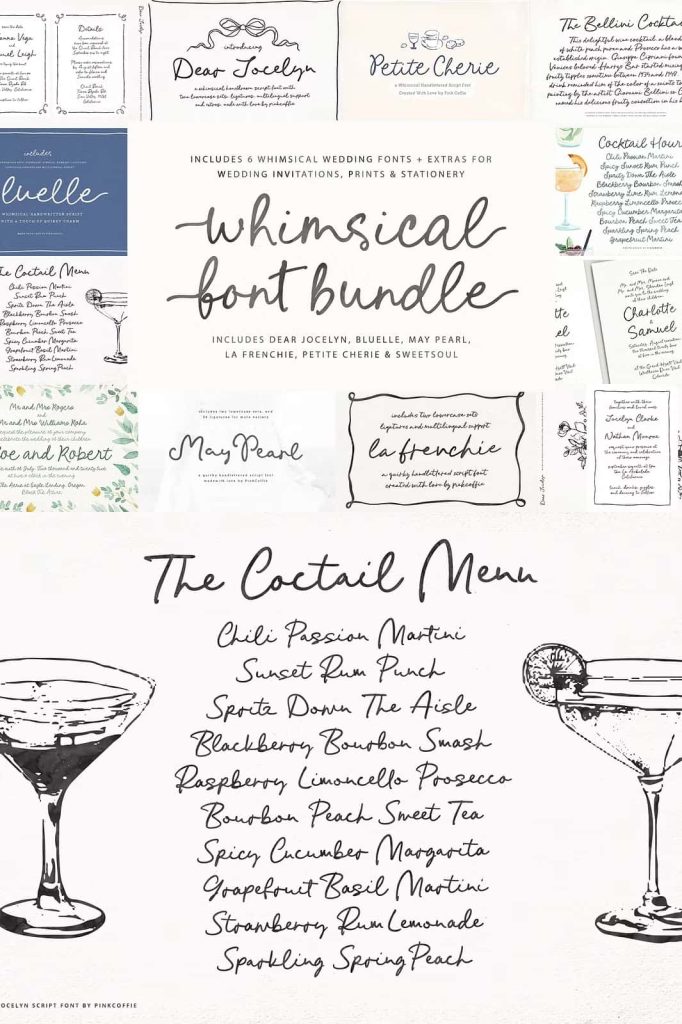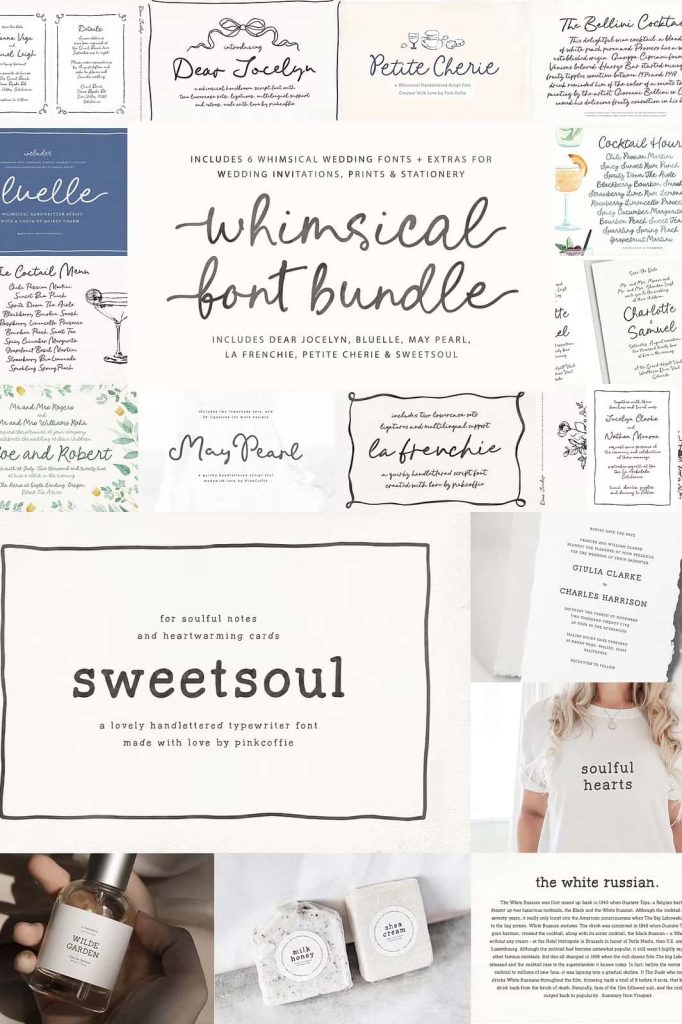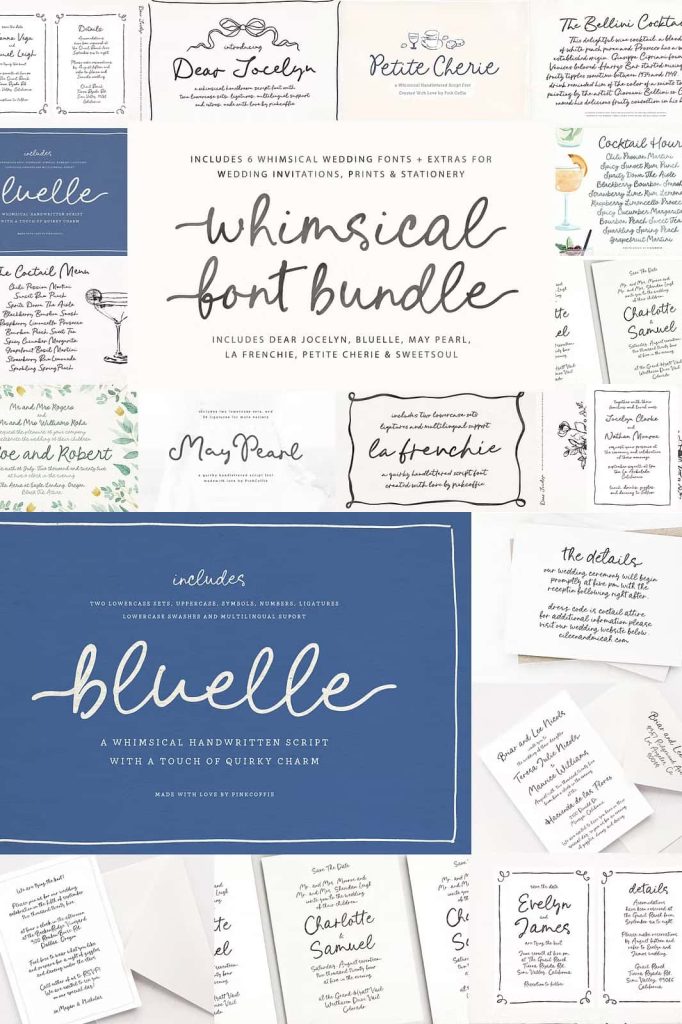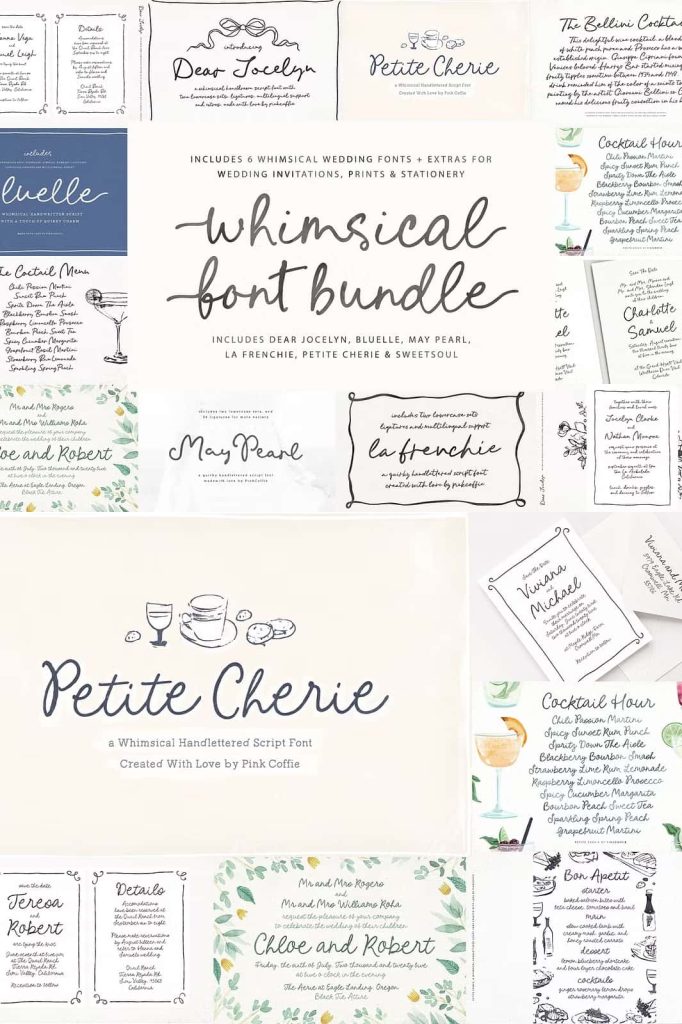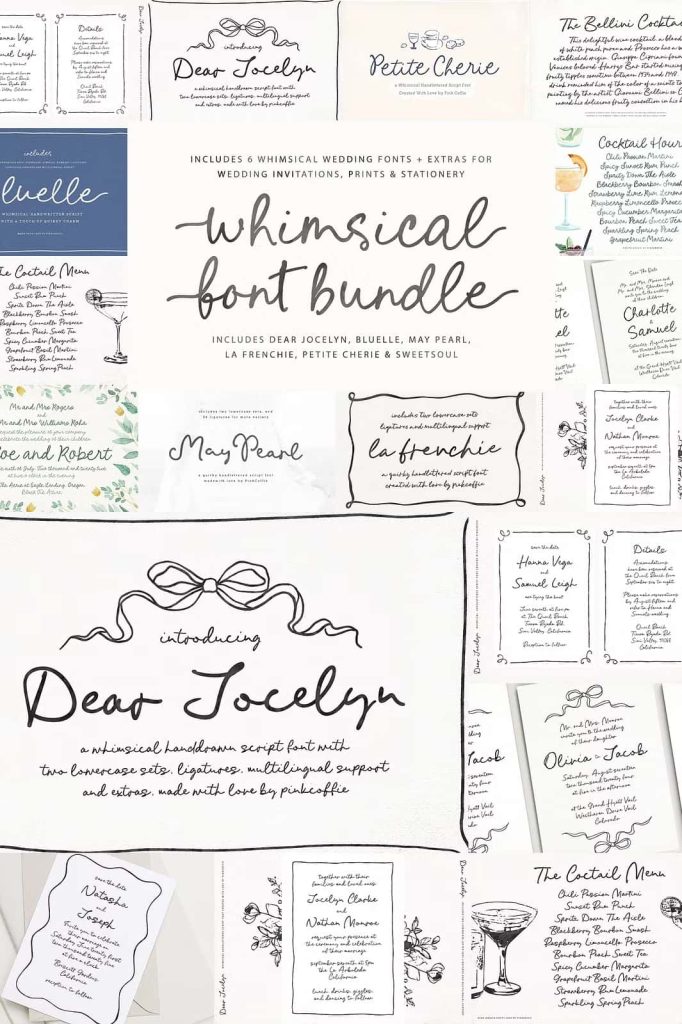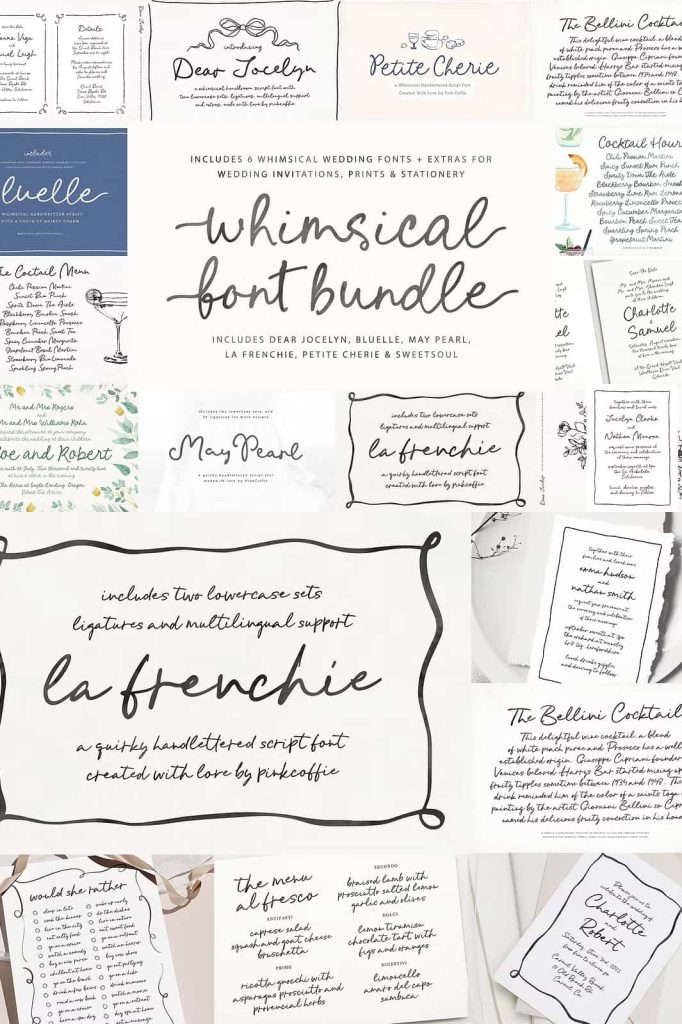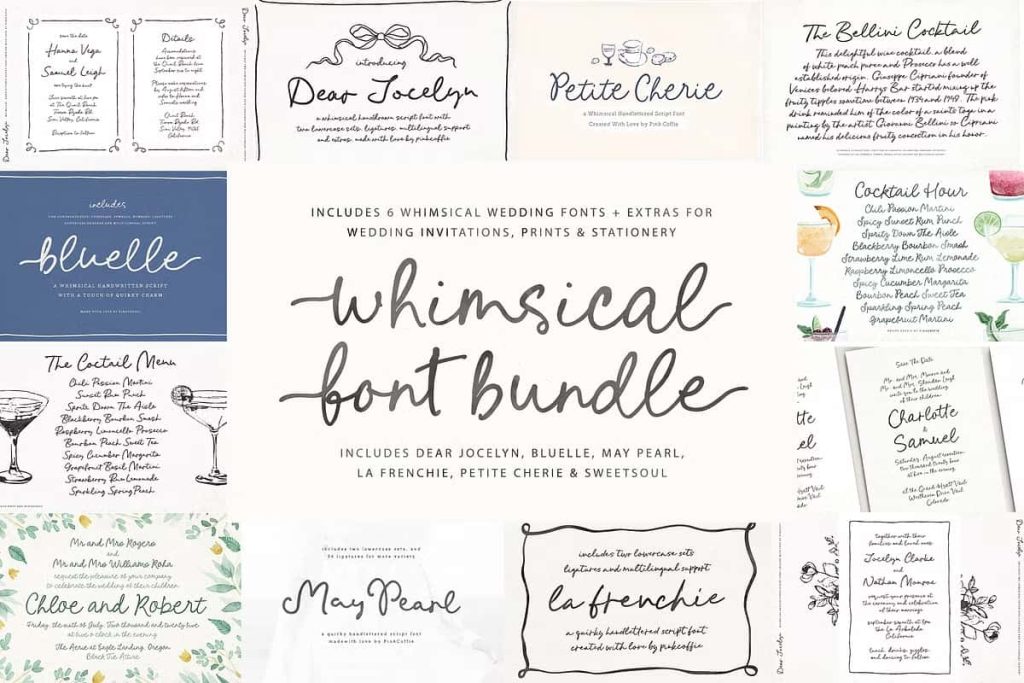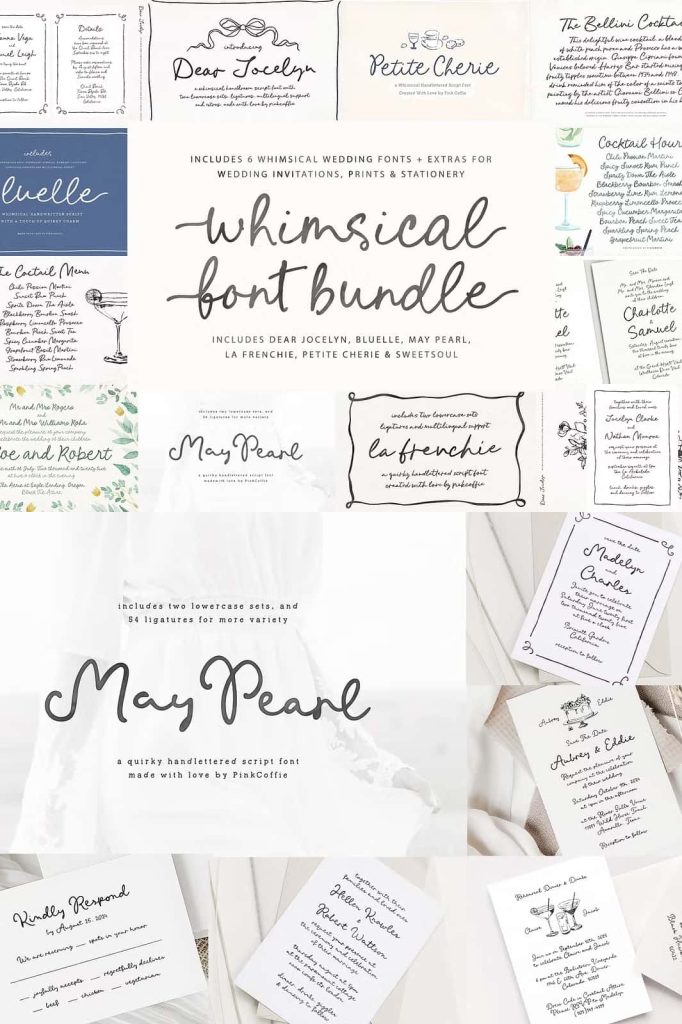
Say hello to the Whimsical Wedding Script Font Bundle collection, featuring a total of 6 fonts – 5 trendy whimsical handwritten script fonts & one hand-lettered typewriter serif font, which can be used as is, or mixed and matched with the quirky script fonts.